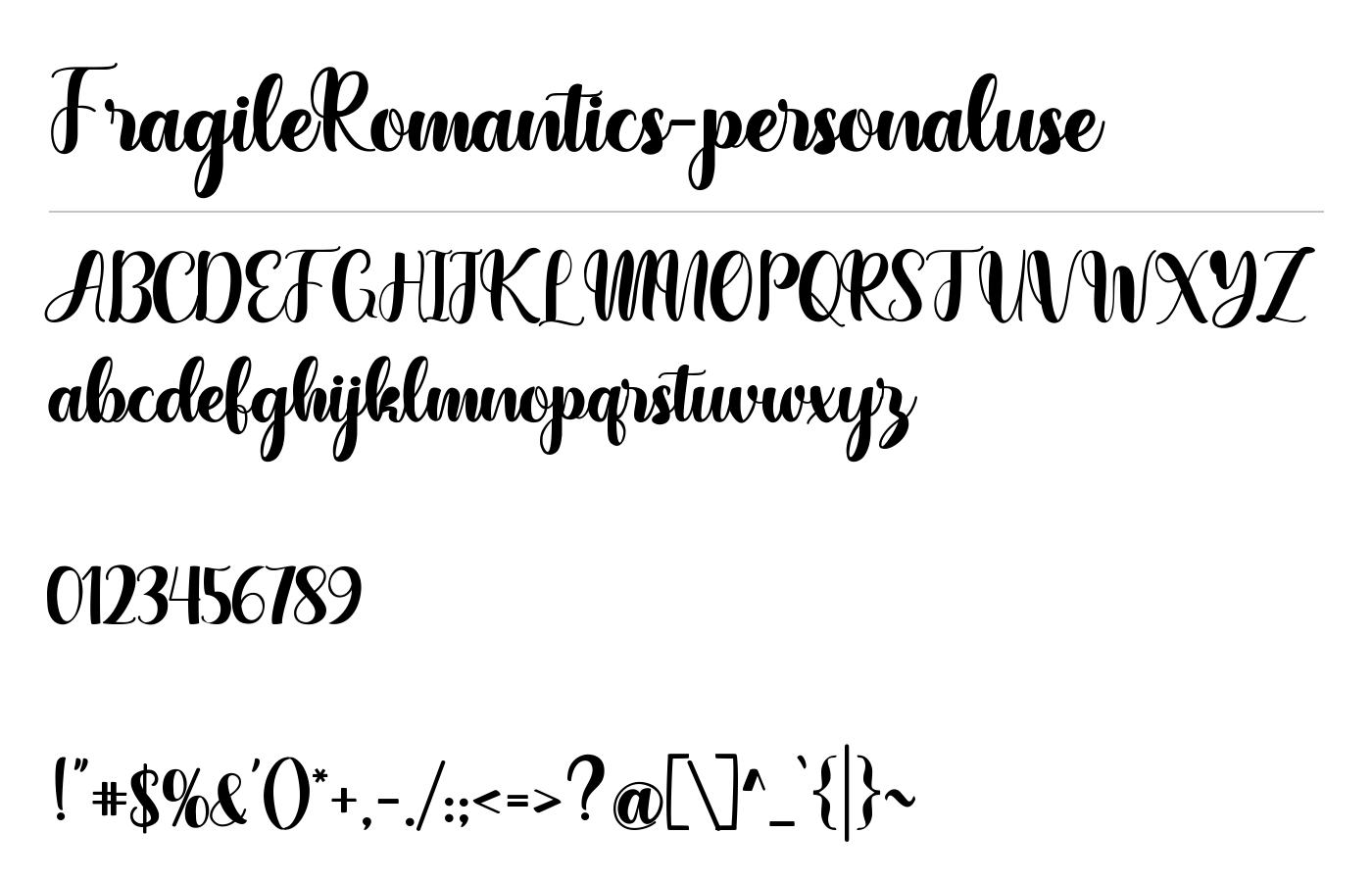
Fragile Romantics is a stylish script font with elegant, flowing letterforms that combine thick and thin strokes for a graceful, handwritten feel. Its playful yet sophisticated character makes it ideal for romantic branding, invitations, and creative projects aiming to convey warmth and charm. This font works beautifully in headlines and logos where a touch of delicate personality is desired.
Fragile Romantics Font
About Fragile Romantics Font
| Font family | Fragile Romantics Font |
| Designer | jack gridden |